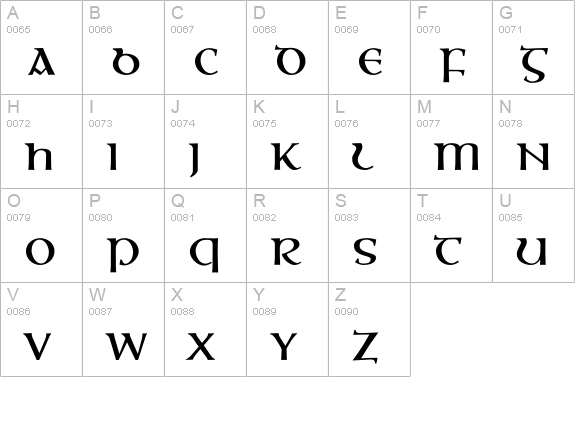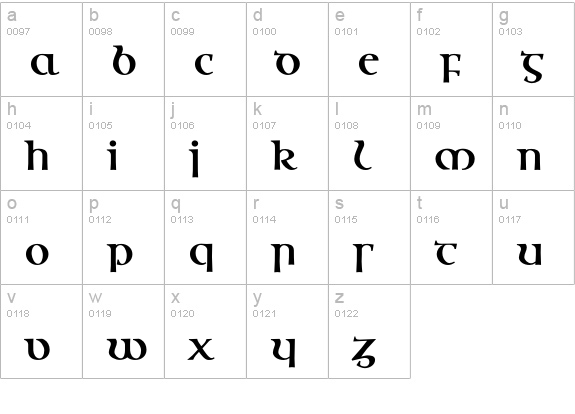
OssianEF-BoldAlternate is a striking and versatile font that exudes a sense of modernity and sophistication. With its bold and alternate characters, this typeface brings a unique and contemporary touch to any design project. Whether used for headlines, logos, or branding materials, OssianEF-BoldAlternate commands attention and leaves a lasting impression. The best part? OssianEF-BoldAlternate is available for free download at FontsMarket.com. This means that you can easily access and use this dynamic font in your creative endeavors without any cost. Embrace the power and creativity of OssianEF-BoldAlternate today and elevate your designs to new heights.